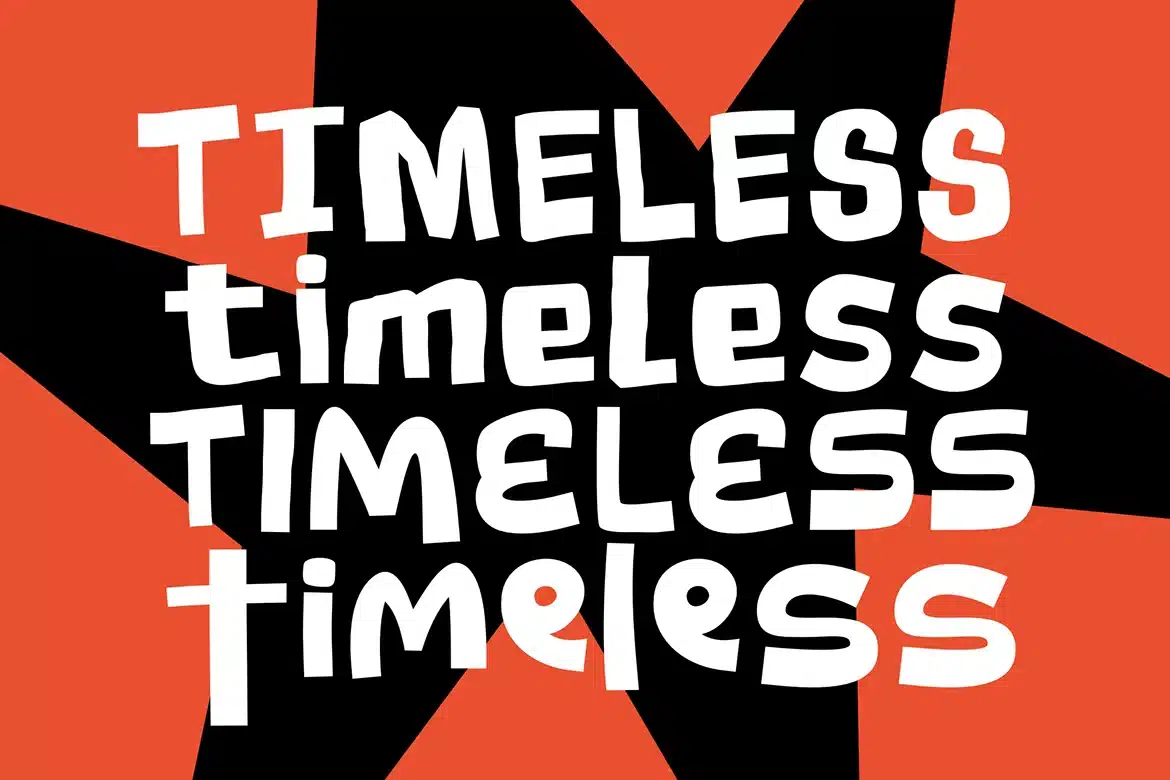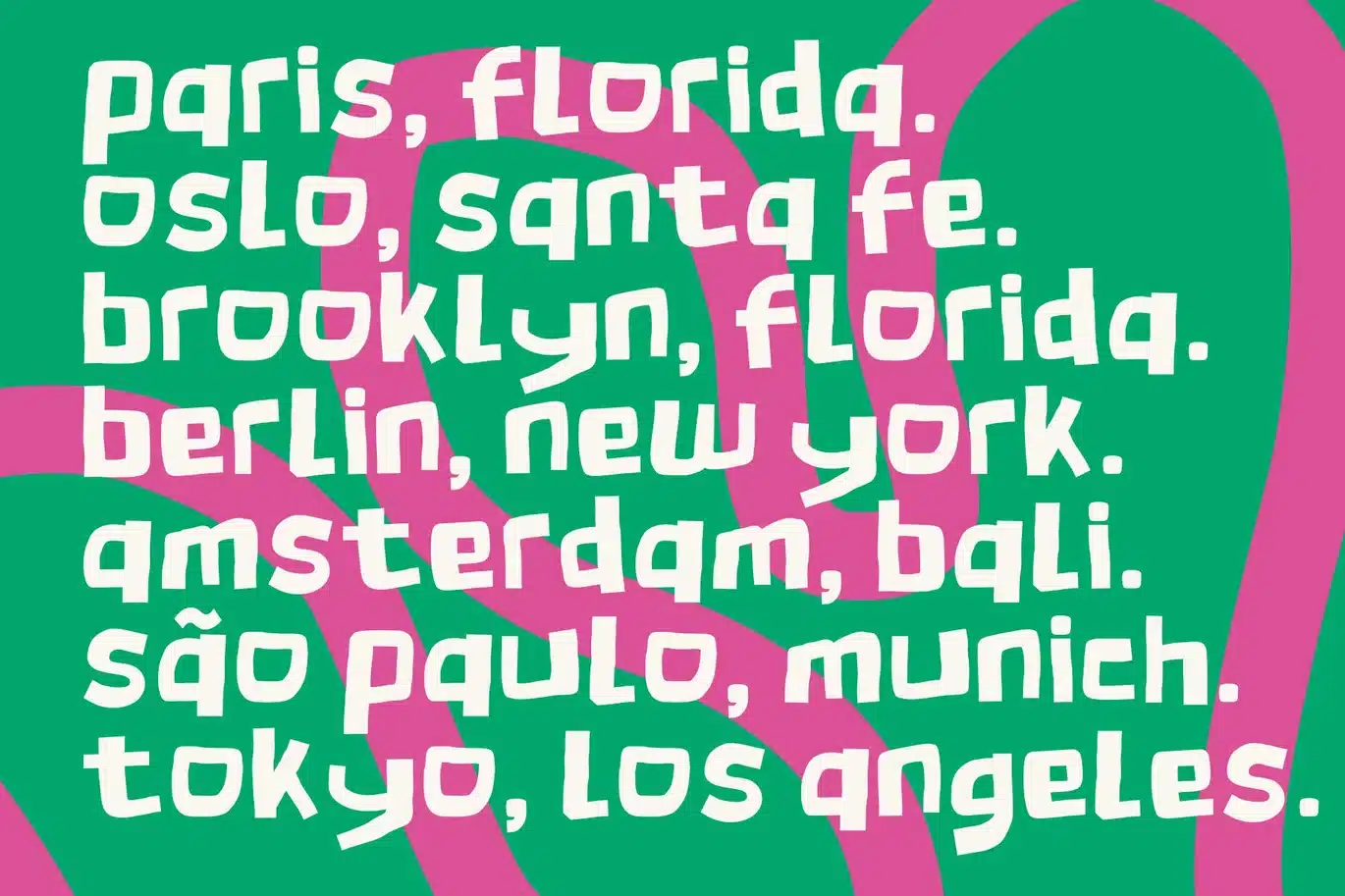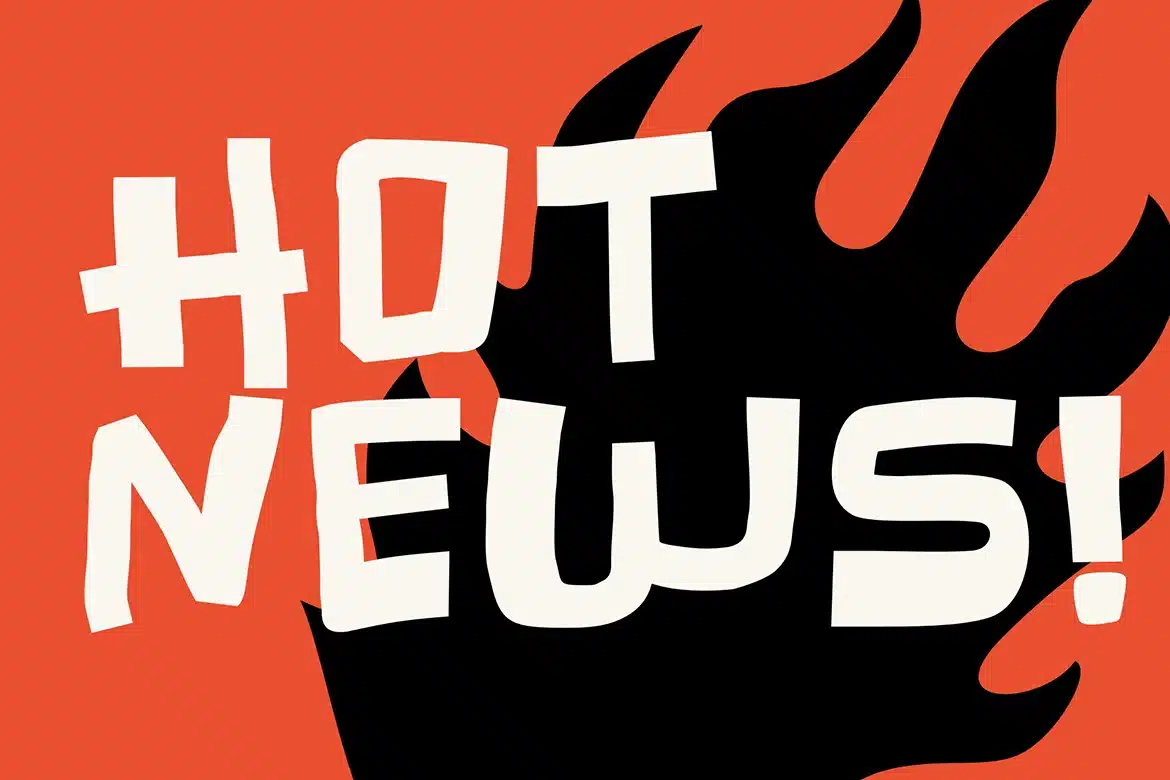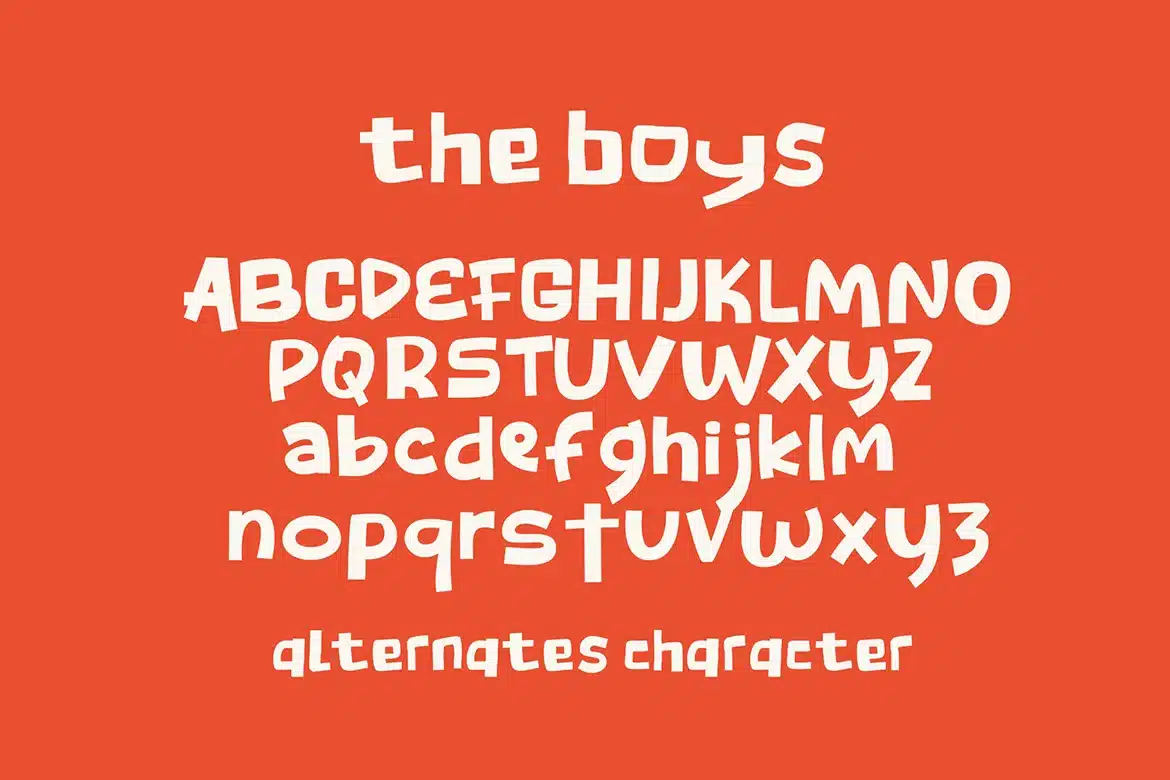
The Boys Font
The Boys is a casual handwritten font that is modern, elegant and cool.
this font looking elegant stylish, up-to-date and easy to use.
The Boys meant for branding, It's great for Logo, headlines and titles, perfect for crafting, branding, stationery, social media posts, advertisements, product packaging, product designs, label, Posters or anything.
Font Features :
- numeric & Multilingual support
- Stylistic Alternates with Ss01